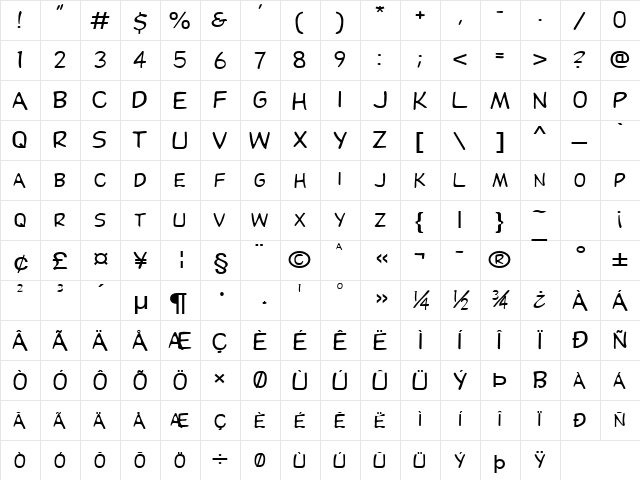
Elizabeth-Extended Normal
Design Context for Elizabeth-Extended Typeface
Elizabeth-Extended is a composed and adaptable typeface that performs quietly and consistently across a wide range of design contexts.